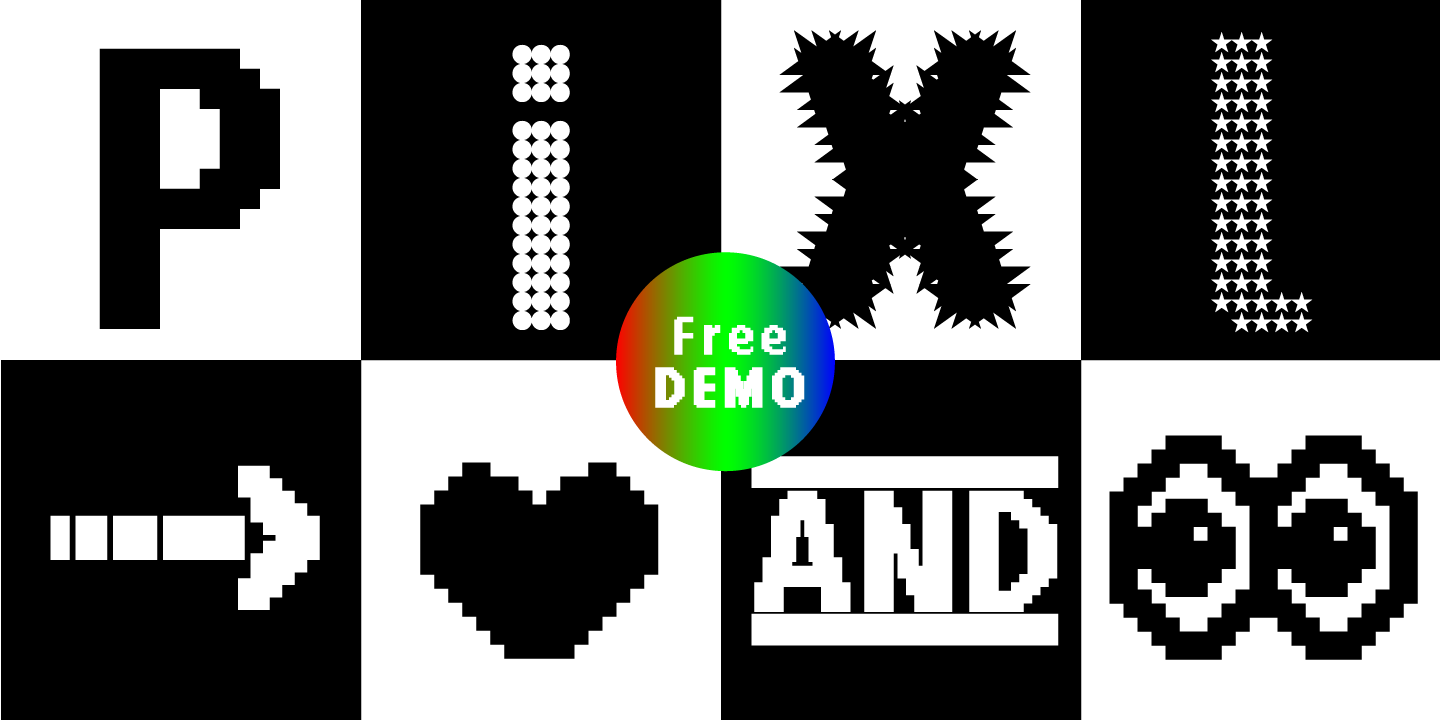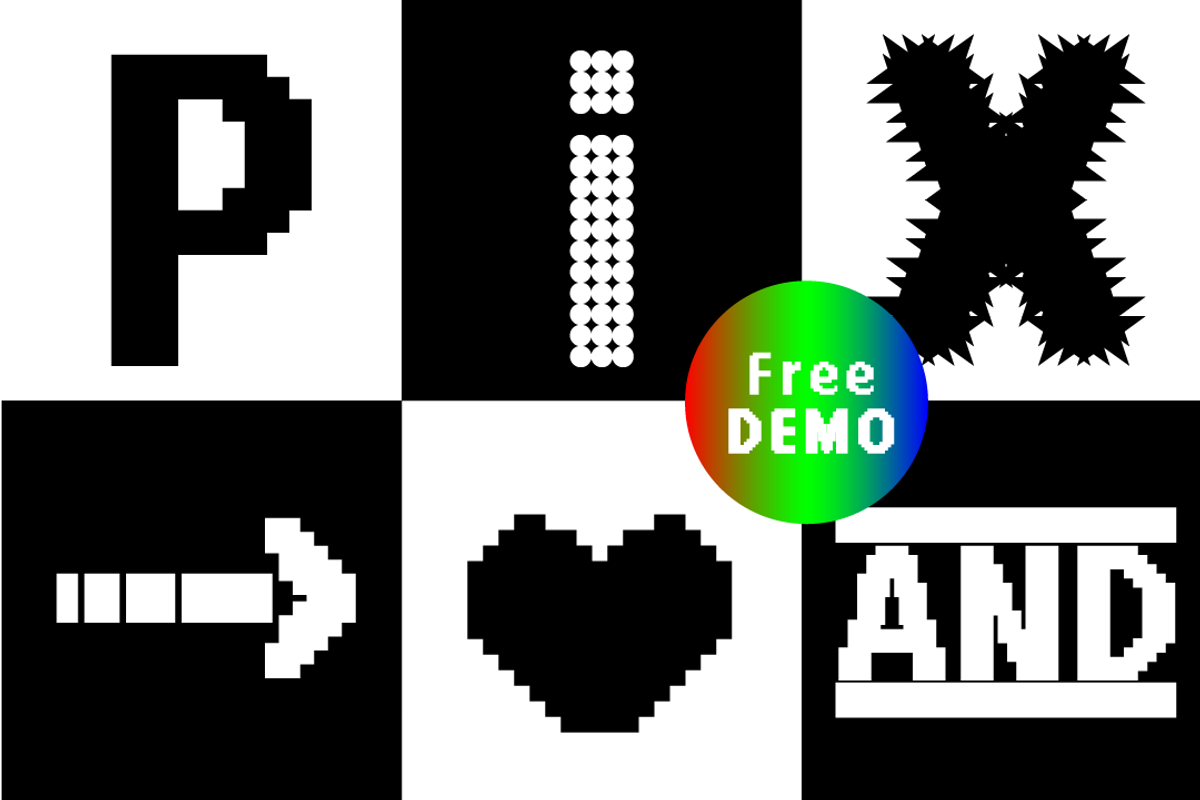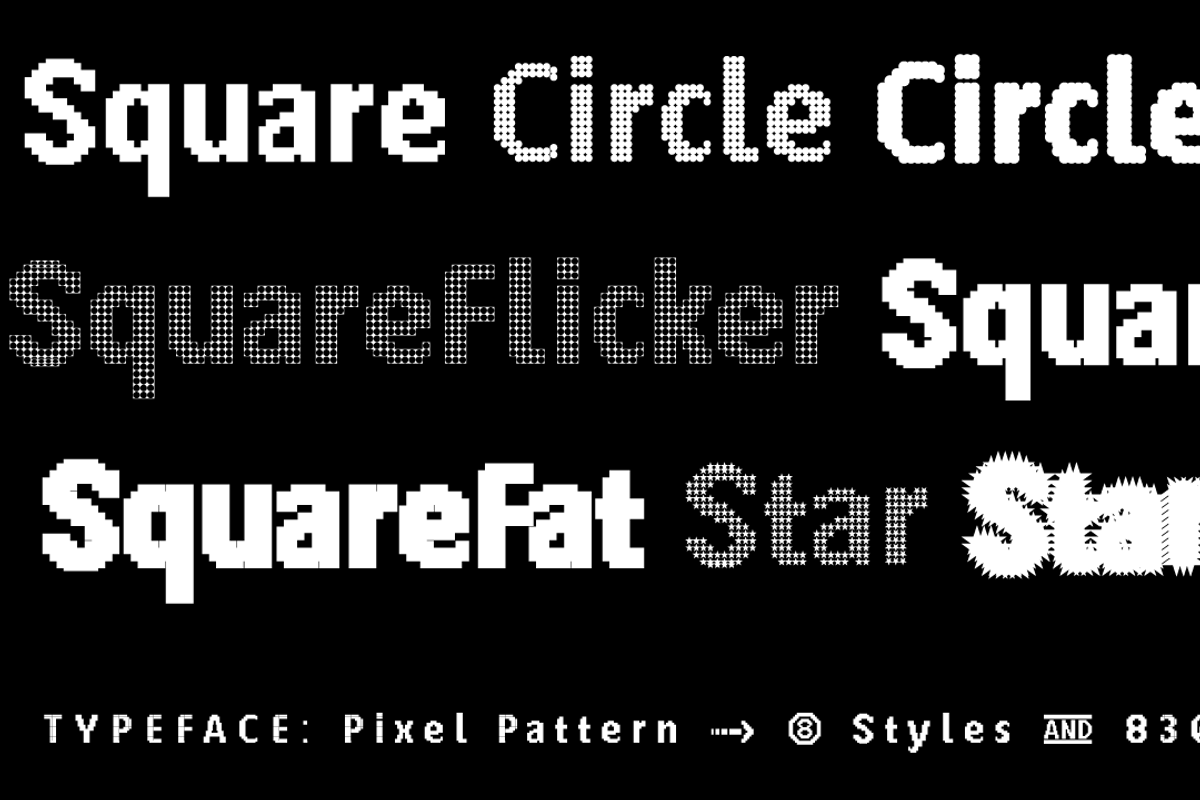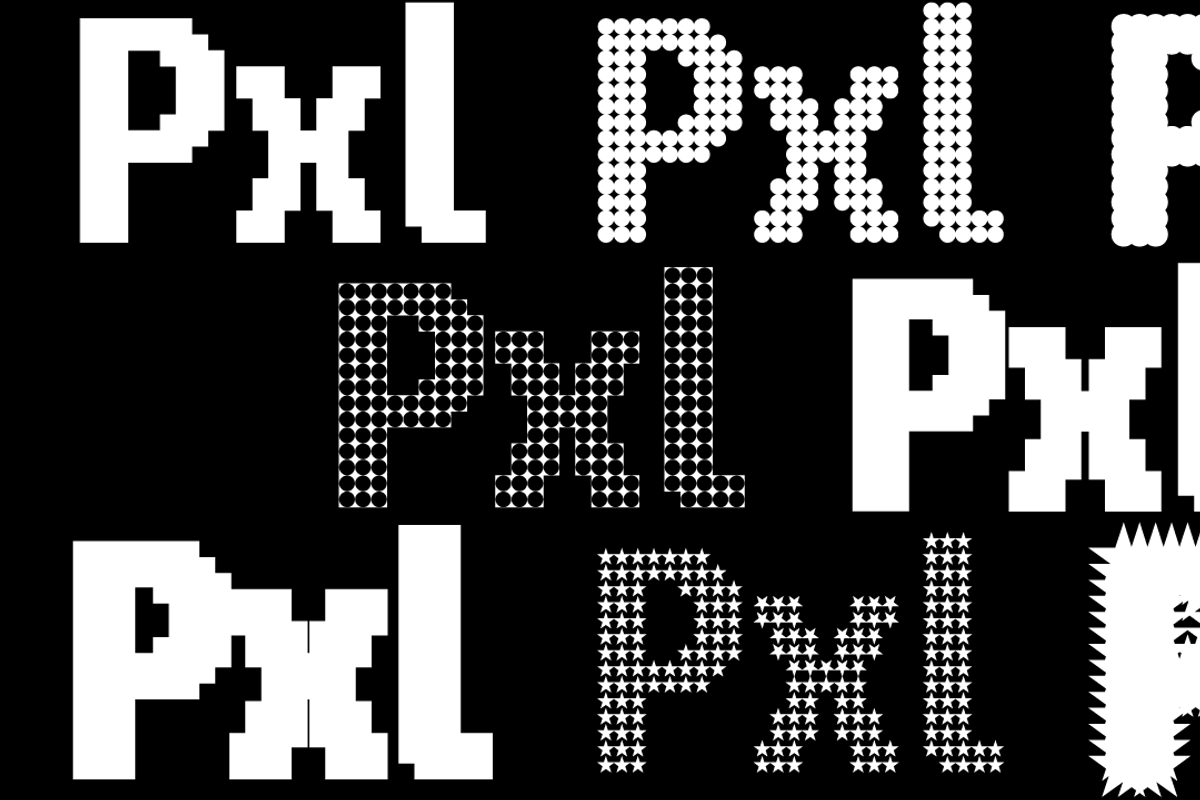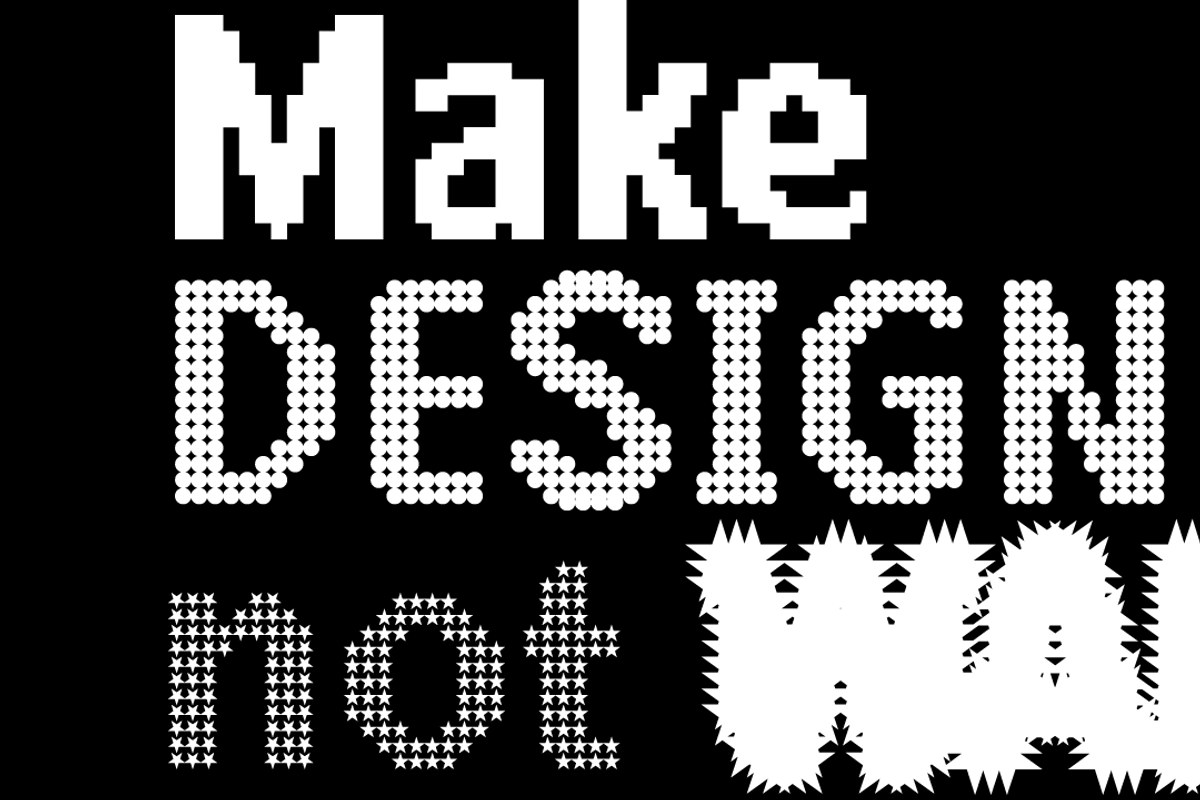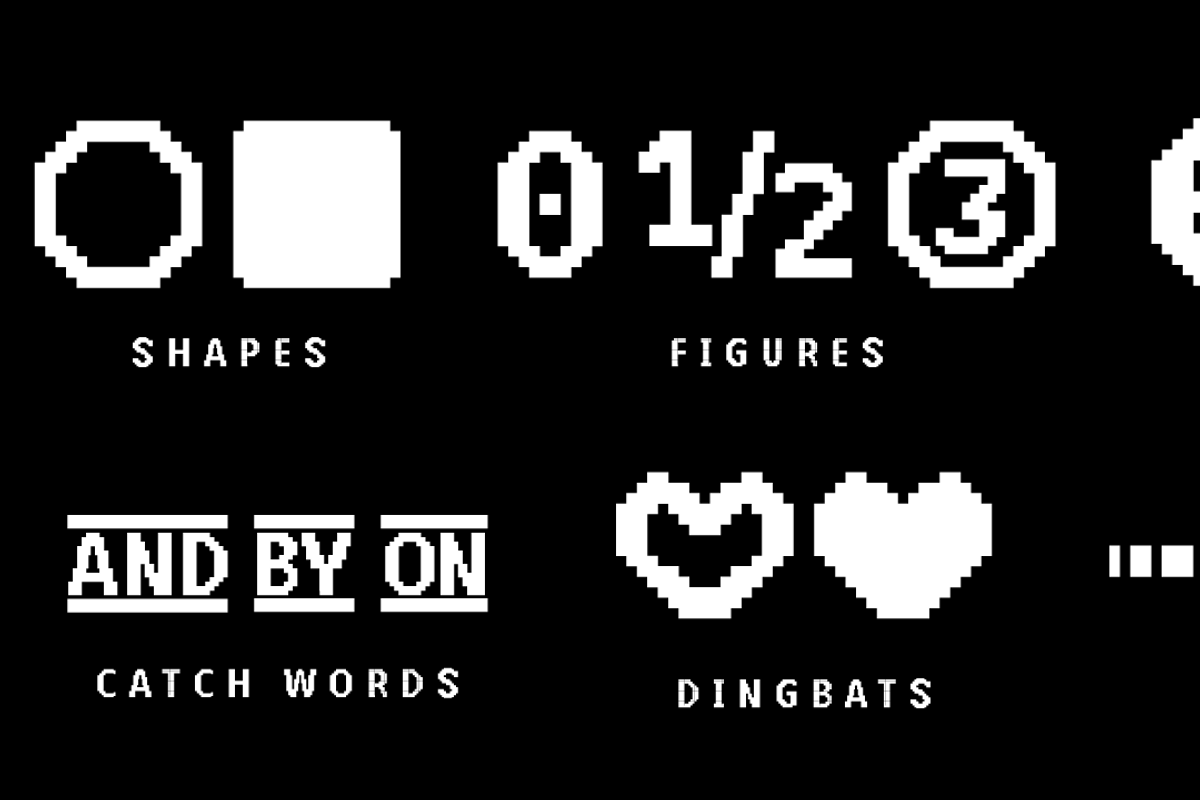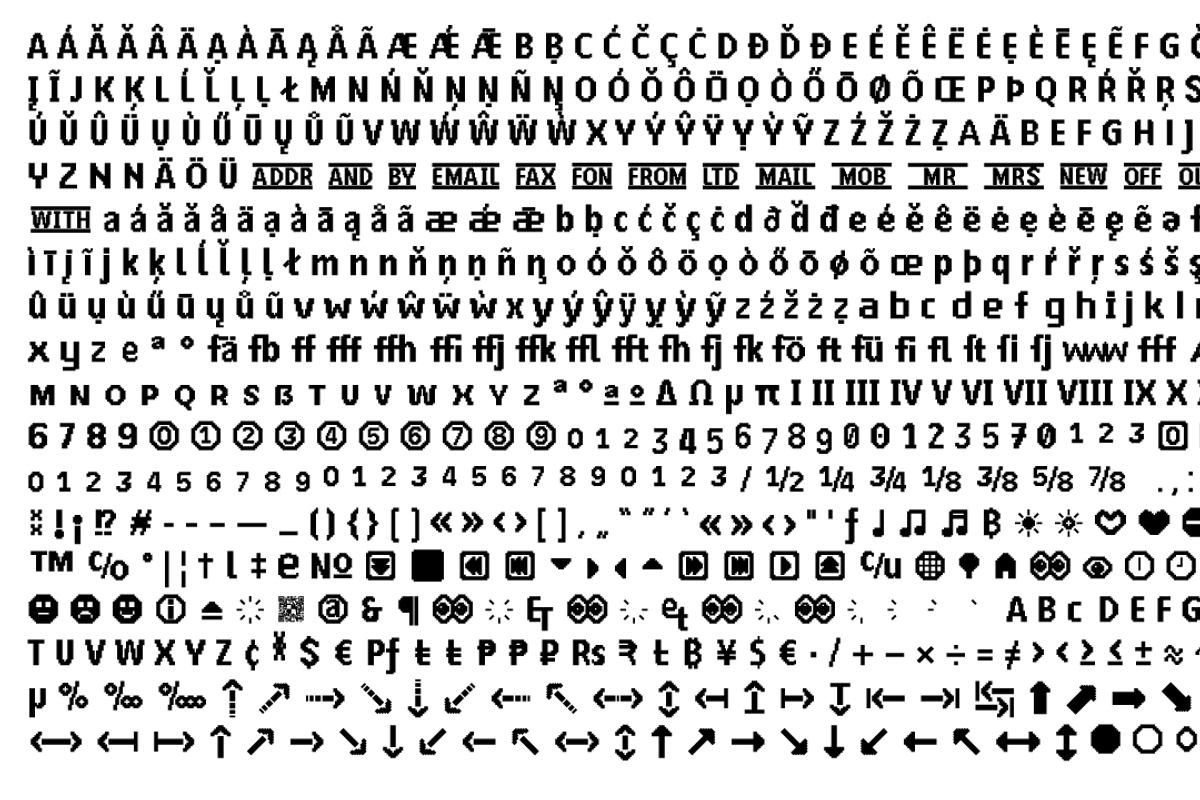
FONT | PIXEL pattern
The typeface PIXEL pattern is designed from 2021 for the font foundry Typo Graphic Design by Manuel Viergutz.
The display typeface is inspired in the past and present.
8 font-styles (Square, Circle, Square Flicker, Circle Cloud, Square Bold, Square Fat, Star, Star Spike) with 830 glyphs (Adobe Latin 3) incl. 100+ decorative extras like icons, arrows, German Capital Sharp S, dingbats, emojis, symbols, geometric shapes, catchwords, decorative ligatures (type the word #LOVE for ❤ or #SMILE for ☺ as OpenType-Feature dlig) and stylistic alternates (8 stylistic sets).
For use in logos, magazines, posters, advertisement plus as webfont for decorative headlines. The font works best for display size.